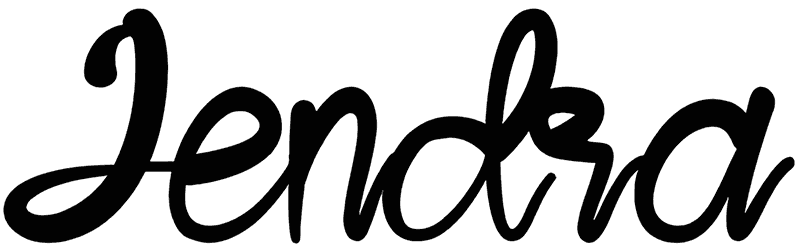
Jendra Font
If you are really keen on a script font with cursive design, then ignoring a handwritten font such as Jendra will not be fair at all. As the audience’s eyes are up and down following its sophisticated flow, they will fall in love with the sense of personalization, beauty, softness, and delicacy.
This font is the choice of professional graphic designers for creating posters, business cards, invitations, product packaging, and editing photos.